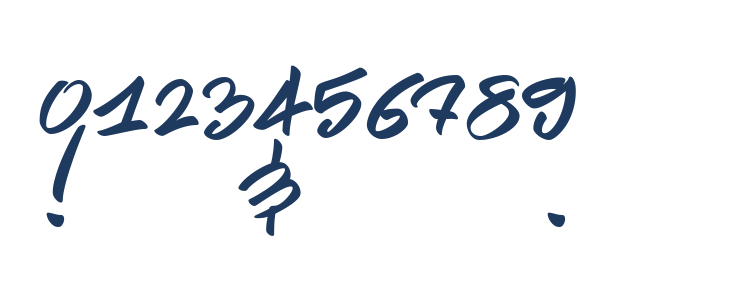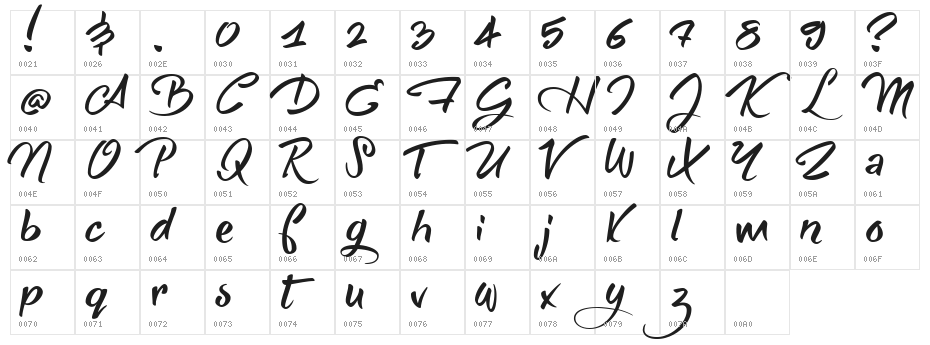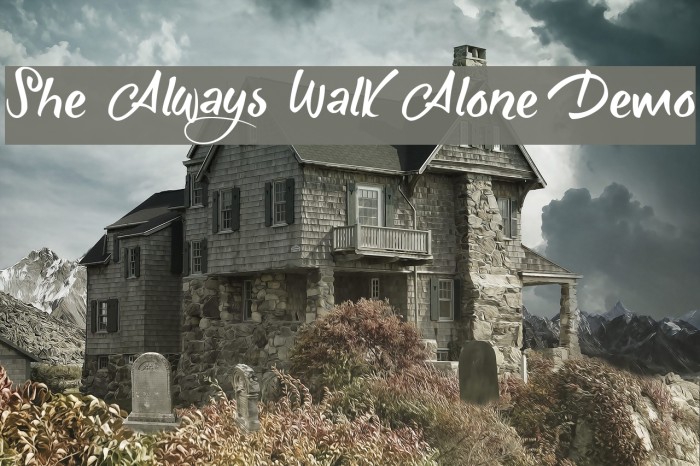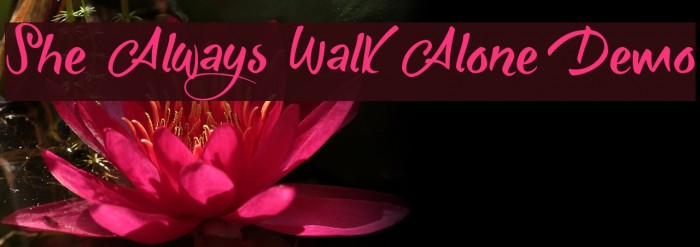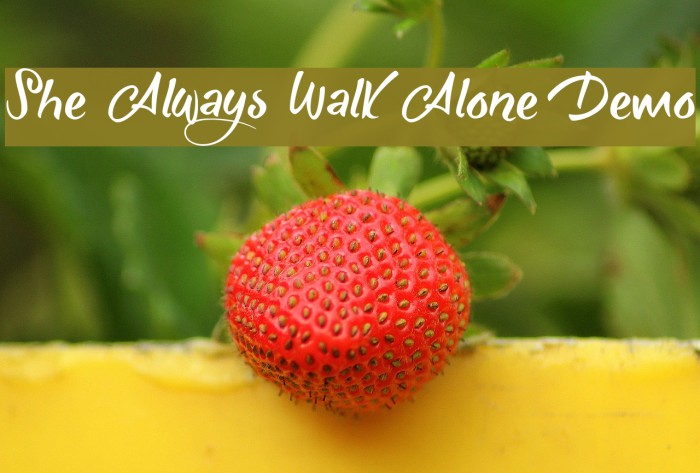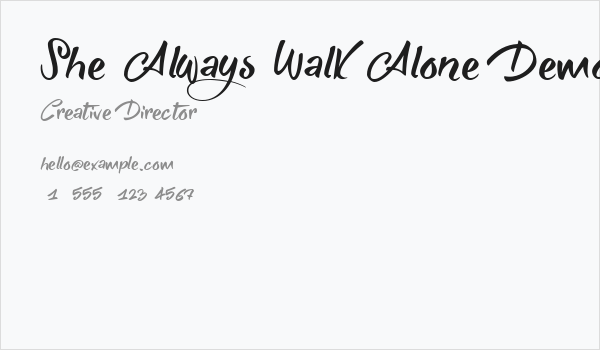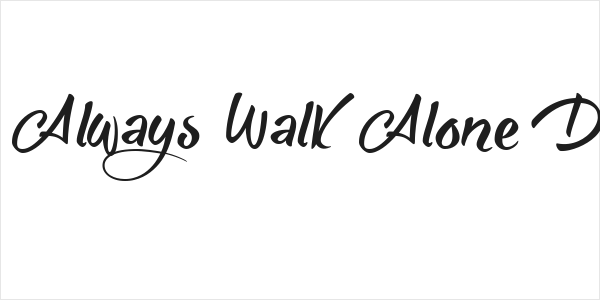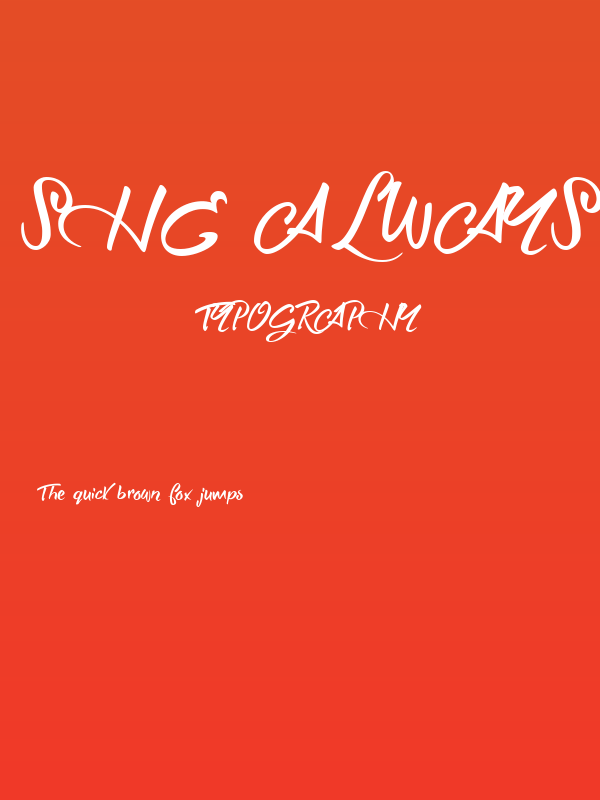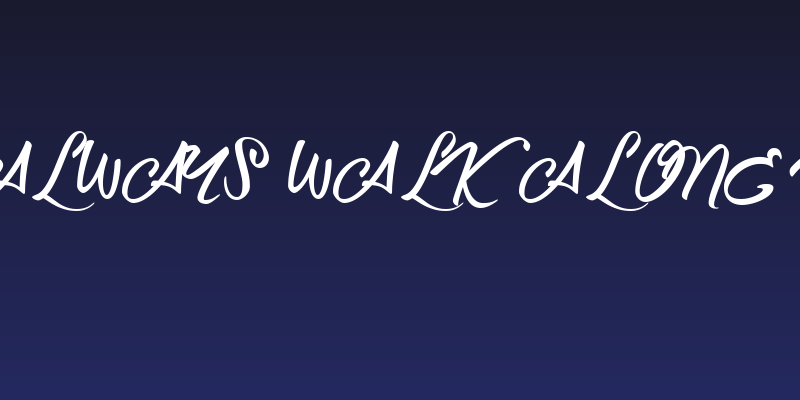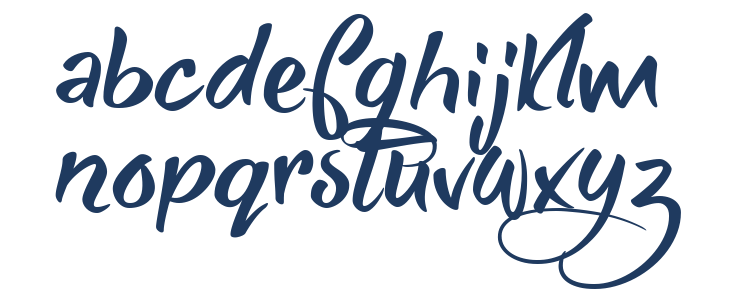
She Always Walk Alone Demo Font
She Always Walk Alone Demo Description
This font features a dynamic and flowing script style, characterized by its elegant and fluid letterforms. The uppercase letters are ornate with sweeping curves and flourishes, giving a sense of movement and grace. The lowercase letters maintain a consistent style, with smooth connections and a slightly more restrained design compared to the uppercase. The numerals are bold and maintain the script's overall aesthetic, ensuring readability while retaining the decorative flair. Special characters are integrated seamlessly, matching the font's artistic and expressive nature. This font is ideal for projects that require a touch of sophistication and creativity.